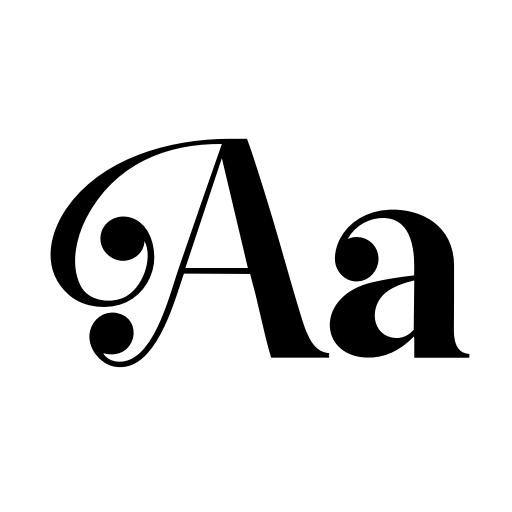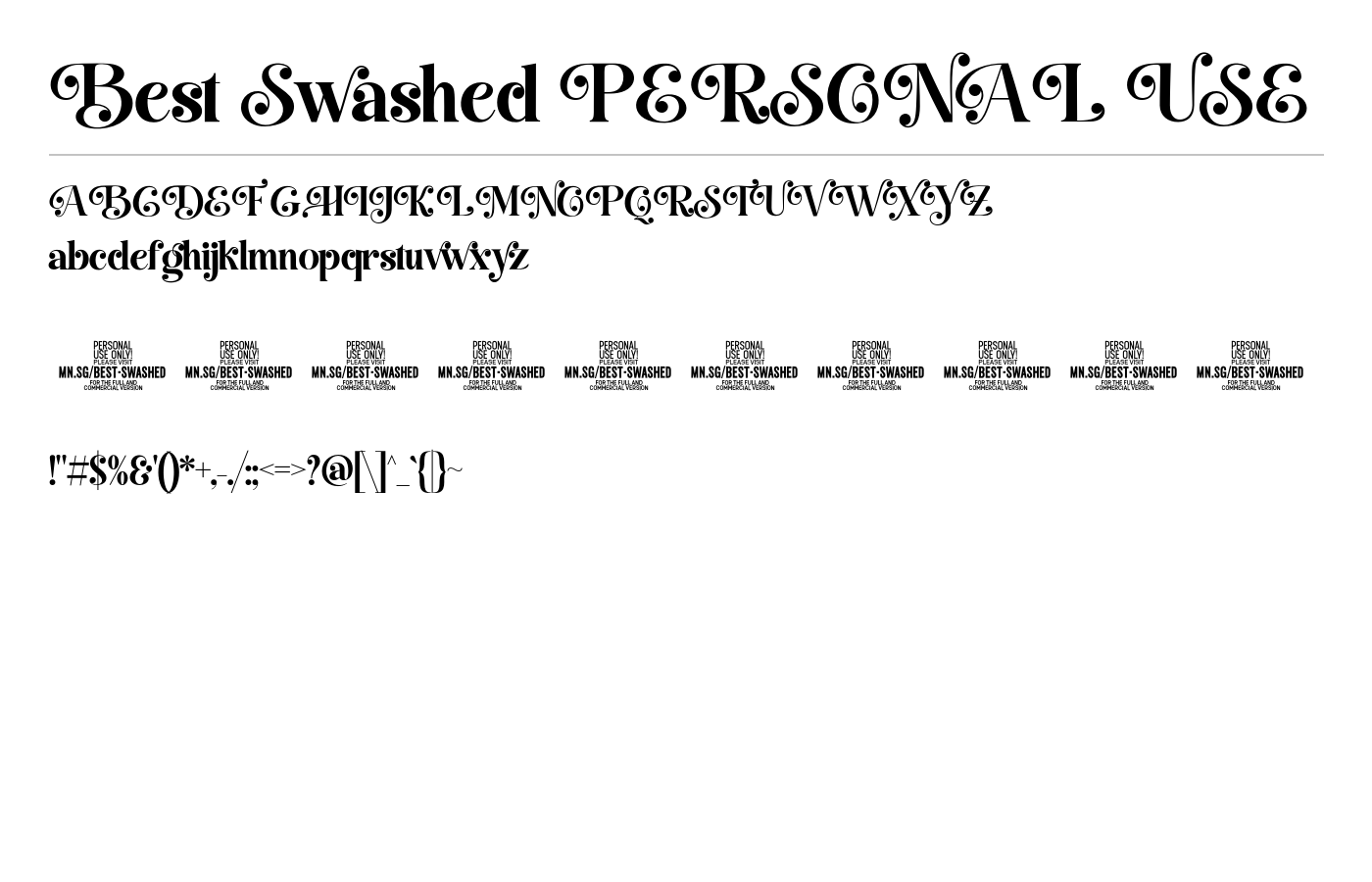
Best Swashed PERSONAL USE is a decorative serif font featuring bold, thick strokes with elegant, playful swashes that evoke a vintage and ornamental feel. Its high-contrast letterforms with unique curls and flourishes make it ideal for eye-catching headlines, logos, and creative projects where a touch of classic charm and personality is desired. This font works best in display settings, bringing sophistication and a whimsical flair to fashion branding, invitations, and posters.
Best Swashed PERSONAL USE Font
About Best Swashed PERSONAL USE Font